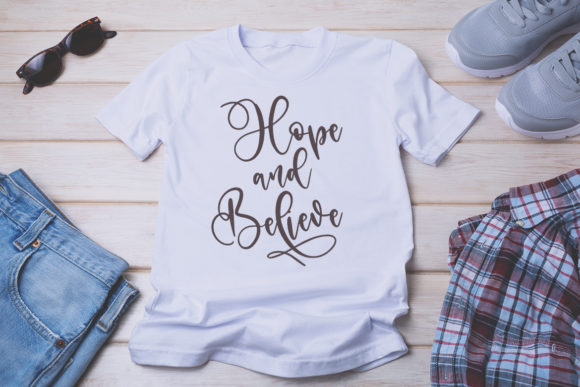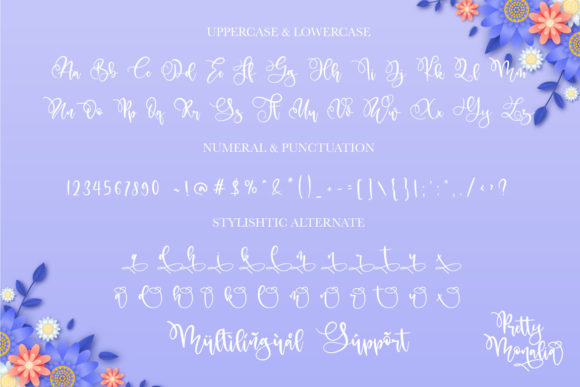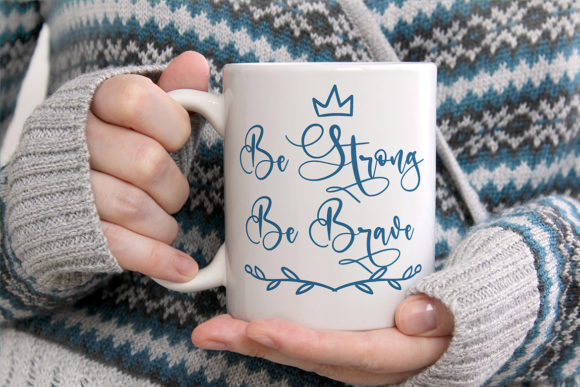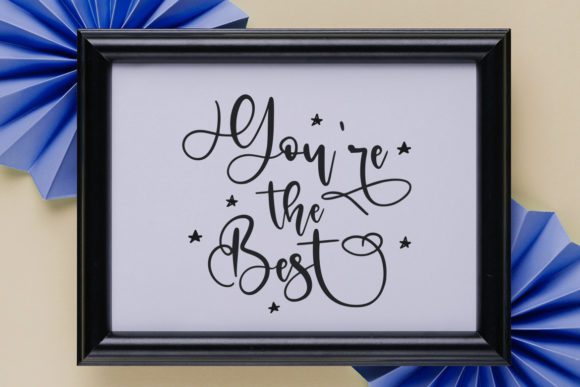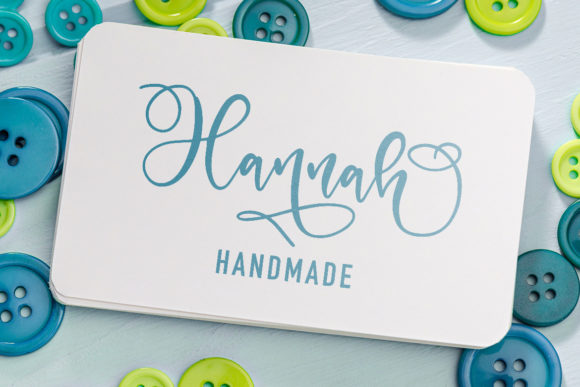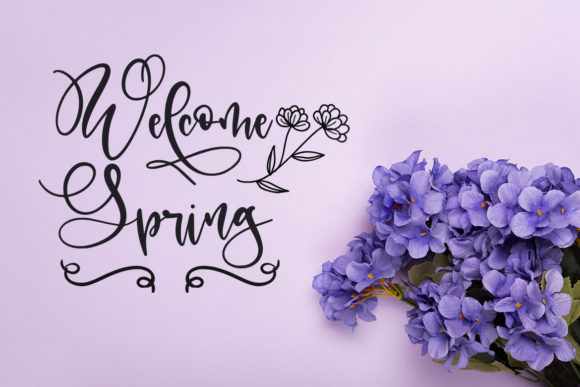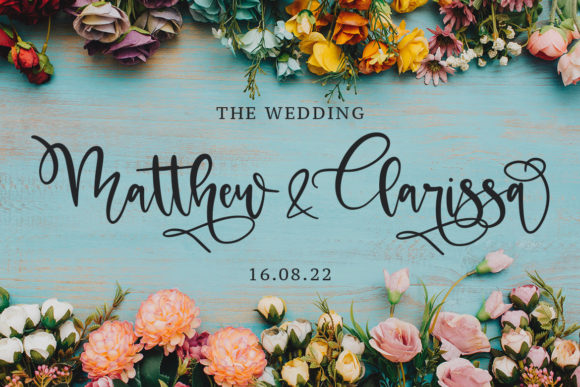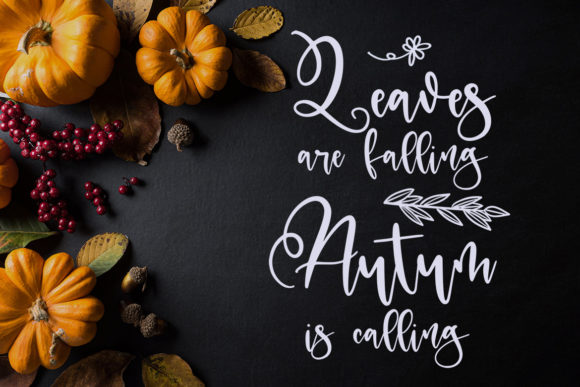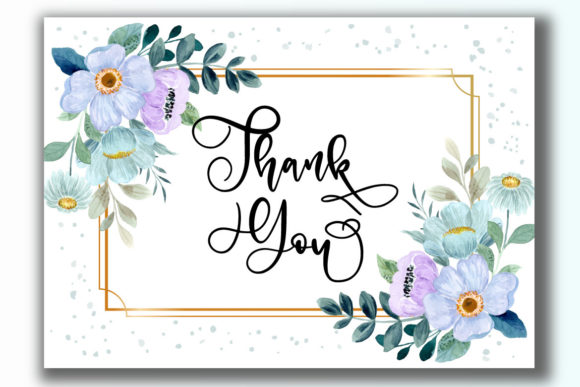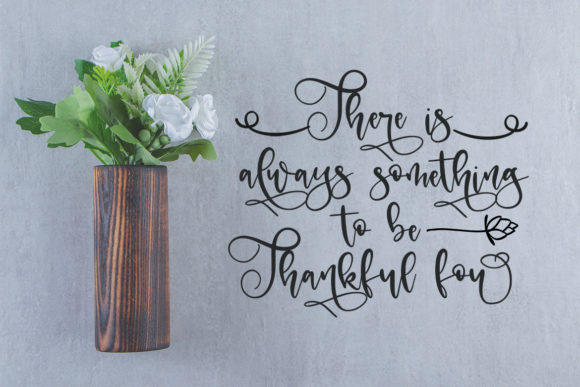
Pretty Monalia Font
About Pretty Monalia Font
Pretty Monalia feels equally charming and elegant. It looks stunning on wedding invitations, thank you cards, quotes, greeting cards, logos, business cards and every other design which needs a handwritten touch.